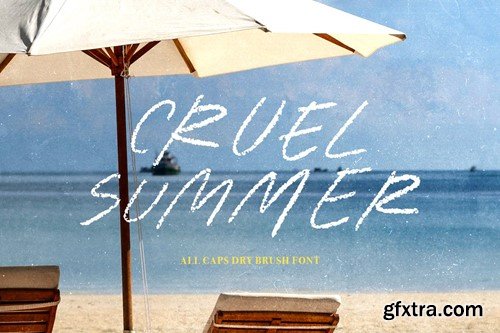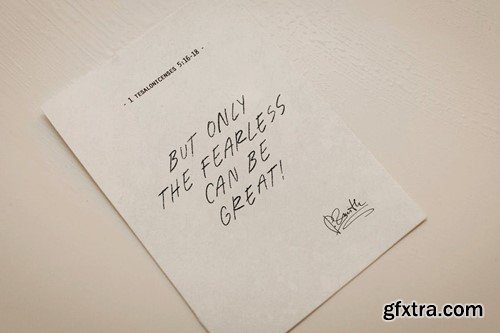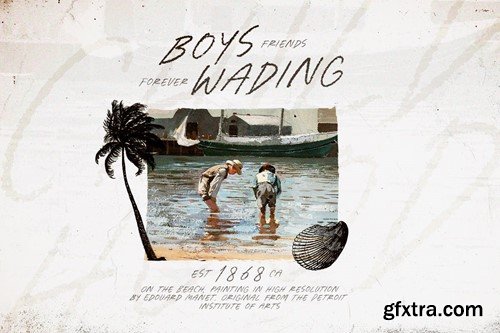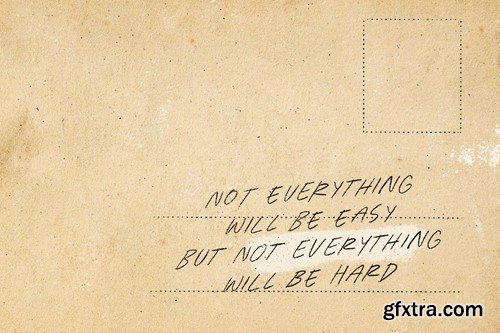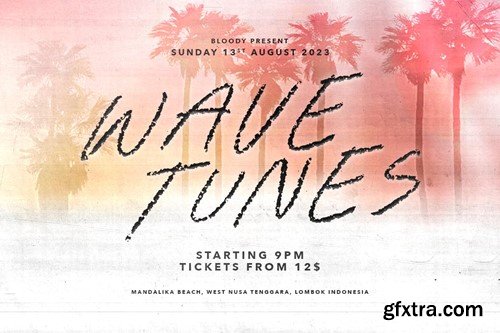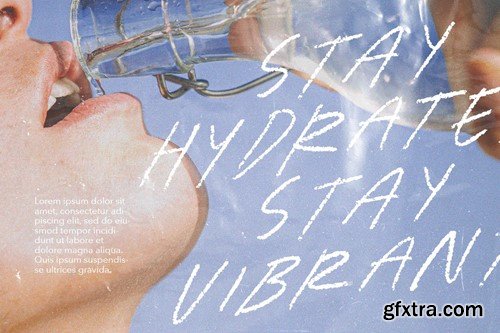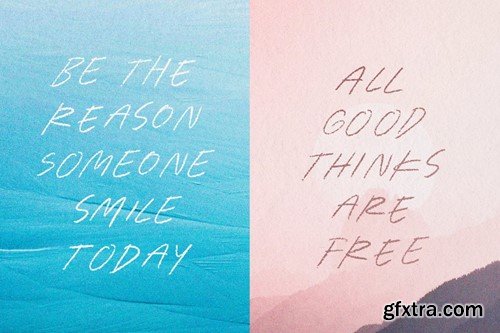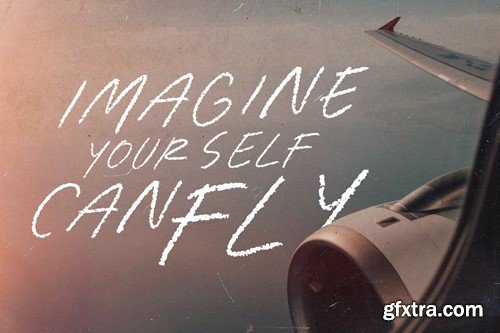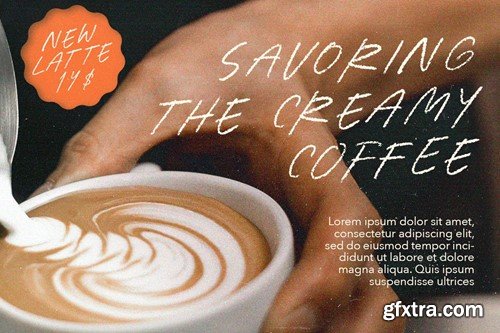
Cruel Summer - Dry Brush Font
Cruel Summer is an all caps font, made with dry brush. With the texture and roughness, this font is suitable when you need a font with handmade and chalk looks. You can use this font for quotes, suitable for menus, slogan, or anything that require rough and texture. With different uppercase and lowercase, you can combine both in one word that will make your text more natural handwritten looks. This font also support multi language! This font also support multilingual! You will get OTF/TTF file that you can install and use in any software designs especially Adobe Photoshop and Adobe Illustrator.